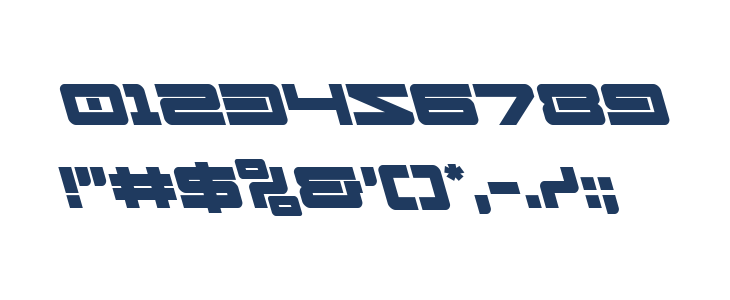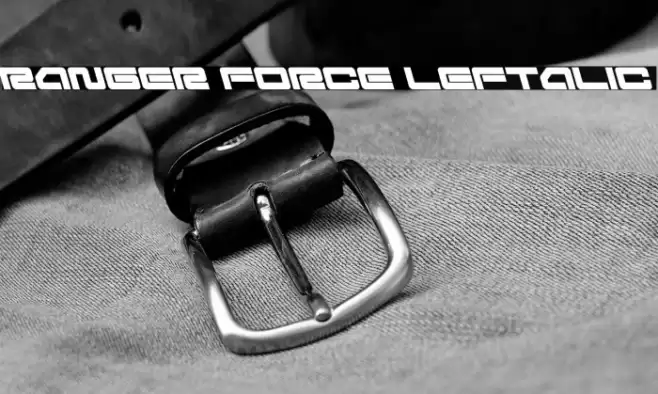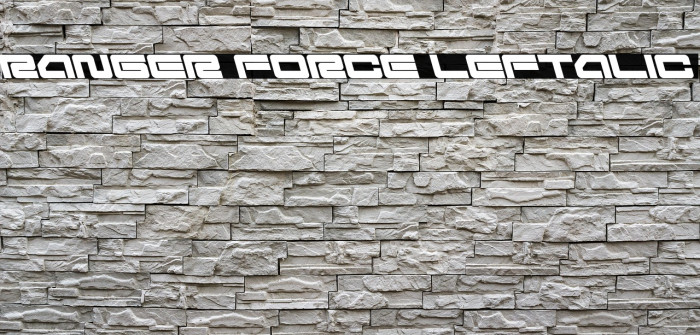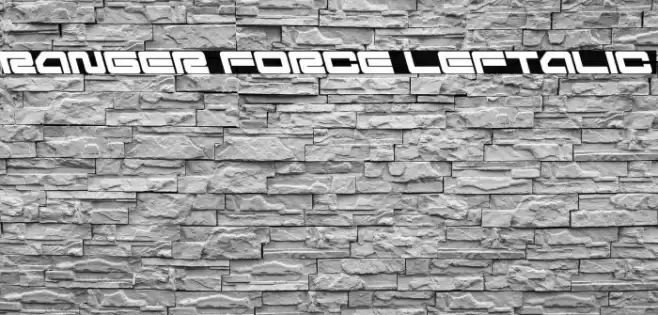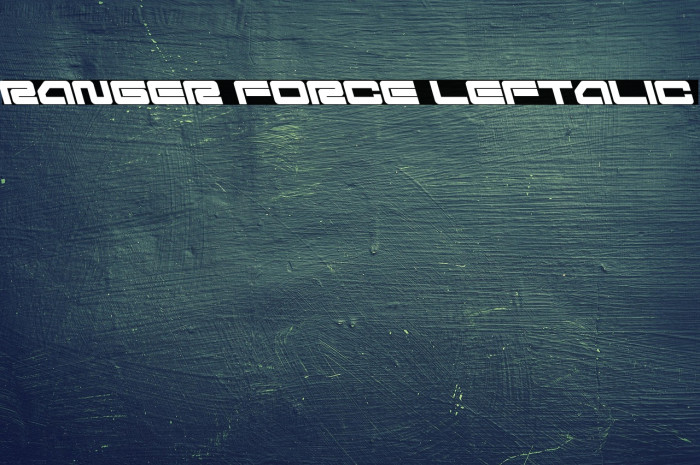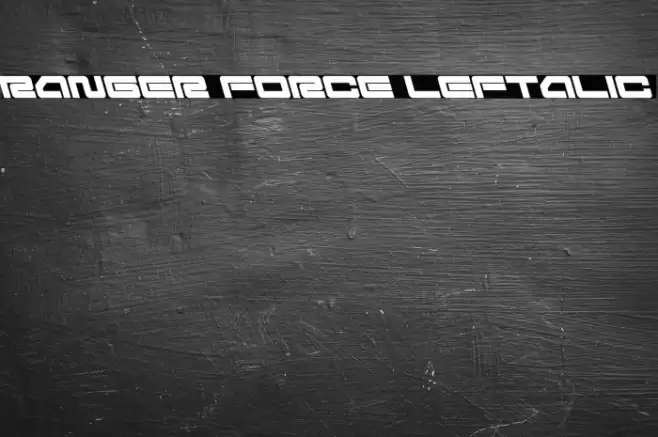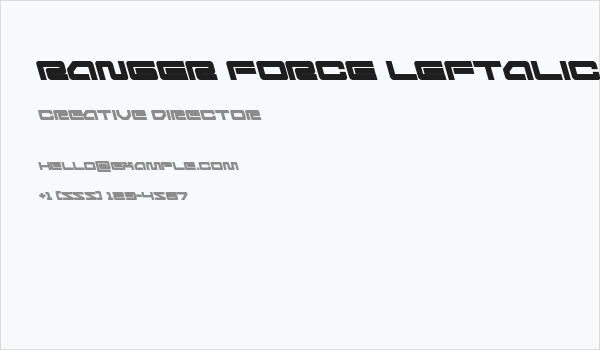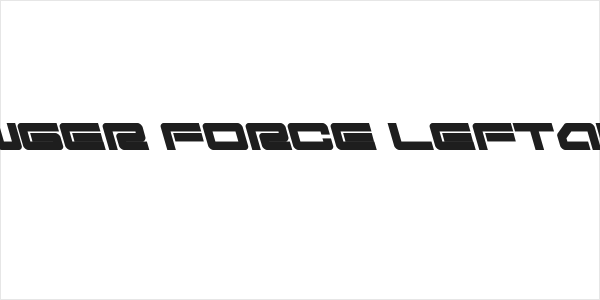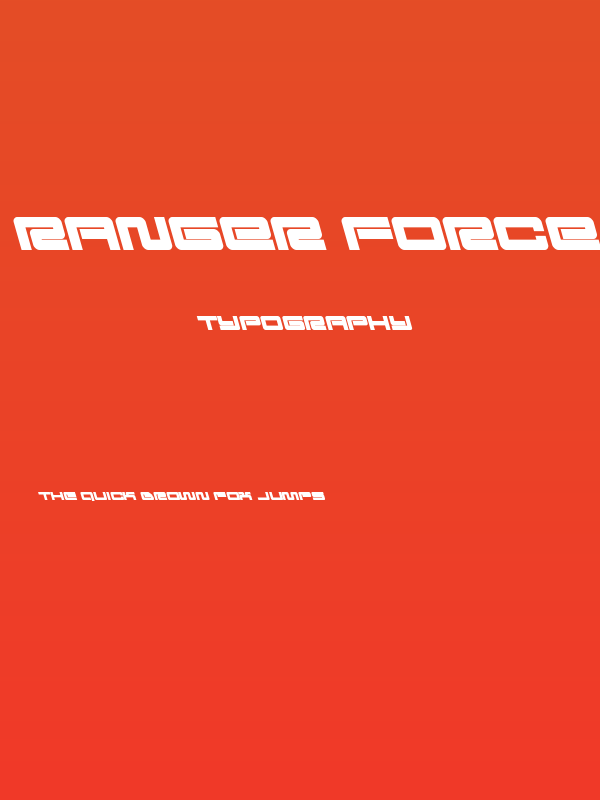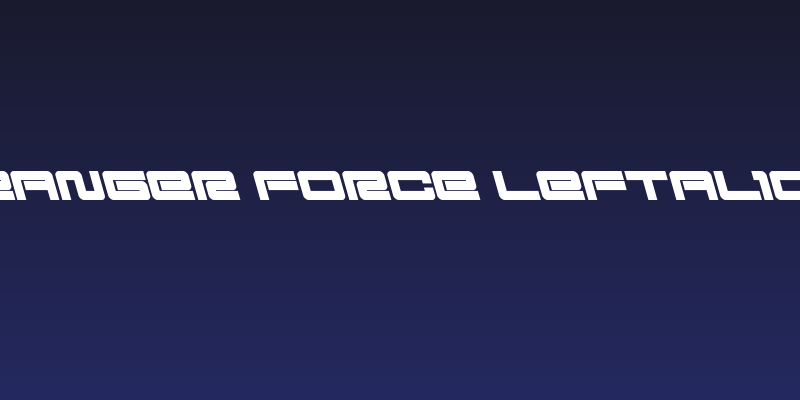
Ranger Force Leftalic Font
Ranger Force Leftalic Description
This font features a bold, futuristic design with a strong geometric influence. The characters are angular and have a distinct, blocky appearance, giving them a dynamic and modern feel. The uppercase and lowercase letters maintain a consistent style, with sharp edges and a slight slant that adds a sense of motion. The numbers and special characters follow the same design principles, ensuring uniformity across all elements. This font is ideal for projects that require a contemporary and edgy look, such as technology-themed designs or sci-fi branding.
| Proposed Projects | Ideal for technology branding, sci-fi posters, video game titles, and modern logos. |